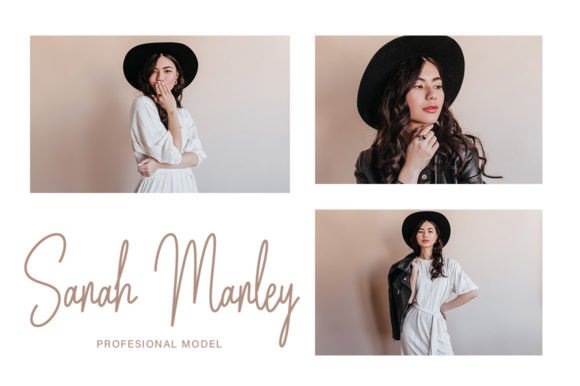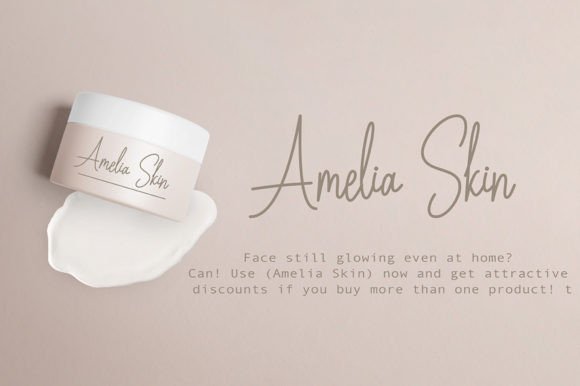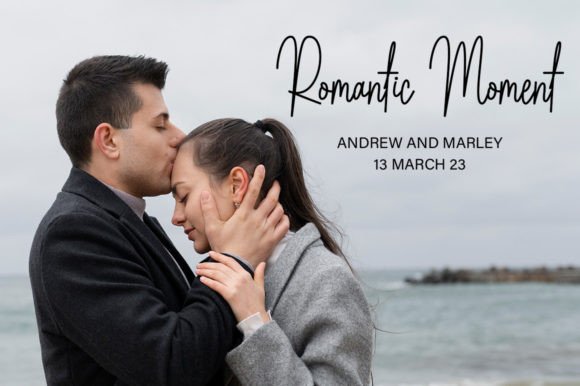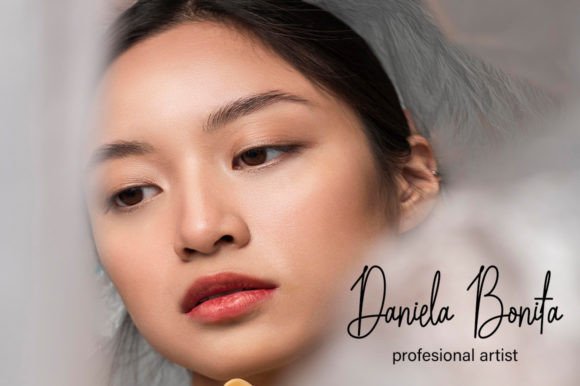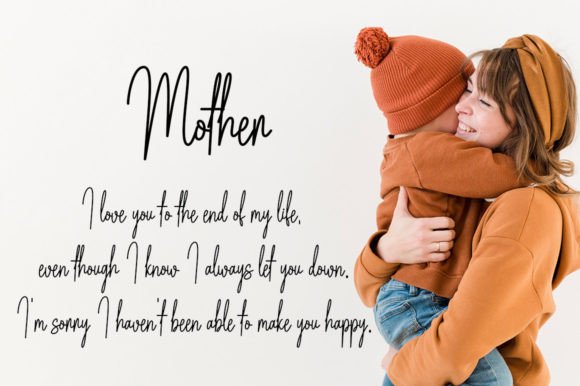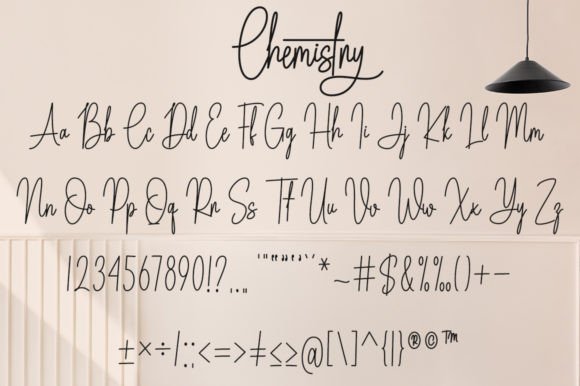
Chemistry Font: Elevate Your Designs with Modern Elegance
In the world of typography, a font can make or break a design. For designers and crafters, finding the perfect font that combines style, versatility, and functionality is a constant quest. This is where Chemistry Font comes in – a modern and monoline script font that is accurately crafted and remarkably detailed. In this article, we’ll dive into the features and benefits of Chemistry Font, and explore how it can refine your creations and elevate your design game.
What is Chemistry Font?
Chemistry Font is a contemporary script font that boasts a sleek and sophisticated monoline design. With its clean lines, elegant curves, and precise craftsmanship, this font is perfect for a wide range of design applications. Whether you’re working on a branding project, packaging design, or digital media, Chemistry Font is an excellent addition to your font library.
Key Features of Chemistry Font
- Modern and Monoline Design: Chemistry Font features a modern monoline script design that exudes elegance and sophistication.
- Accurately Crafted and Detailed: Each glyph and swash has been meticulously crafted to ensure a high level of detail and precision.
- PUA Encoded: Chemistry Font is PUA (Private Use Area) encoded, making it easy to access all glyphs and swashes.
- Versatile and Adaptable: This font can be used for a wide range of design applications, from branding and packaging to digital media and more.
The Benefits of Using Chemistry Font
So, what sets Chemistry Font apart from other fonts on the market? Here are just a few benefits of using this exceptional font:
- Refine Your Creations: With Chemistry Font, you can add a touch of elegance and sophistication to your designs, elevating them to the next level.
- Easy to Use: The PUA encoding makes it simple to access all glyphs and swashes, saving you time and effort.
- Versatility: Chemistry Font can be used for a wide range of design applications, making it an excellent addition to your font library.
- Unique and Creative: With its modern monoline design, Chemistry Font offers a fresh and creative alternative to traditional script fonts.
Who Can Benefit from Chemistry Font?
Chemistry Font is an excellent resource for a variety of designers and crafters, including:
- Graphic Designers: Add a touch of elegance and sophistication to your branding, packaging, and digital media designs.
- Logotype Designers: Create stunning logos and wordmarks with Chemistry Font’s modern monoline design.
- Crafters and Artists: Use Chemistry Font to add a creative and artistic touch to your handmade projects and artwork.
- Digital Artists: Incorporate Chemistry Font into your digital art and illustrations for a unique and eye-catching effect.
In conclusion, Chemistry Font is an exceptional addition to any design library. With its modern monoline design, precise craftsmanship, and PUA encoding, this font offers a world of creative possibilities. Whether you’re a graphic designer, logotype designer, crafter, or digital artist, Chemistry Font is sure to refine your creations and elevate your design game. So why wait? Discover the power of Chemistry Font and take your designs to new heights.